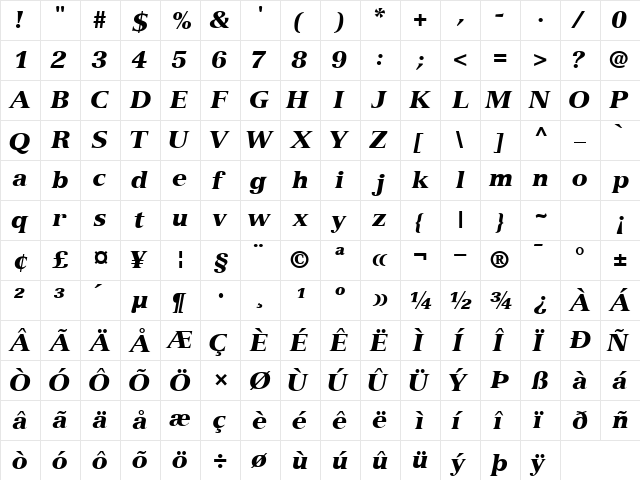
NuanceBlackSSK Italic
Design Context for NuanceBlackSSK Typeface
NuanceBlackSSK is a composed and adaptable typeface that performs quietly and consistently across a wide range of design contexts. The dynamic lean of this cut emphasises speed and emphasis in any layout.
Pro Tip: Try NuanceBlackSSK for annotation and caption copy alongside an upright companion — the contrast in angle creates a dynamic but ordered typographic system.